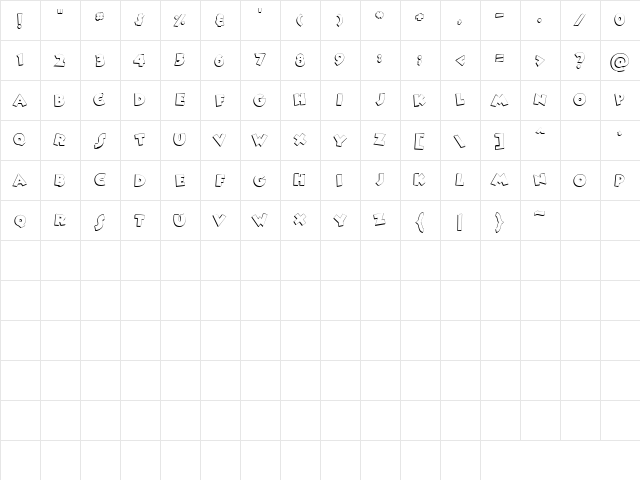
LD Mick E. Regular
Design Context for LD Mick E. Typeface
LD Mick E. is a composed and adaptable typeface that performs quietly and consistently across a wide range of design contexts.